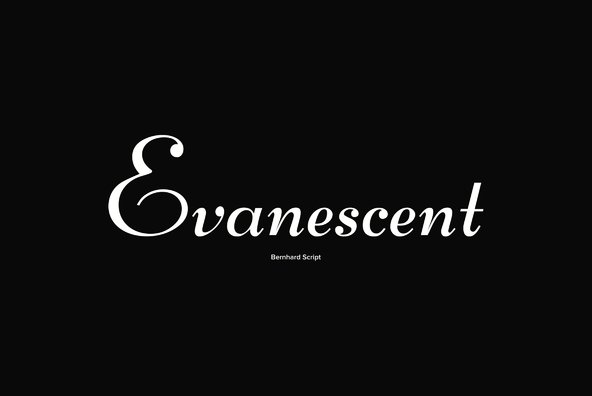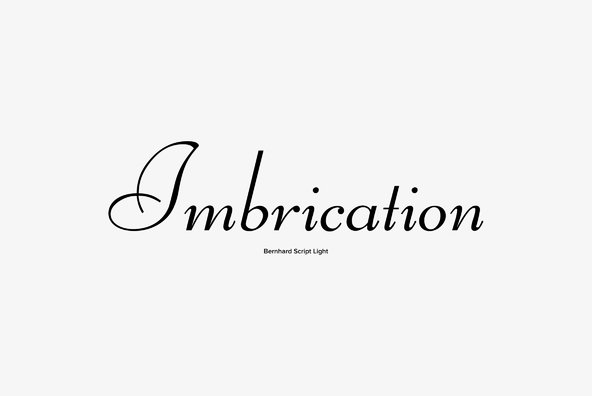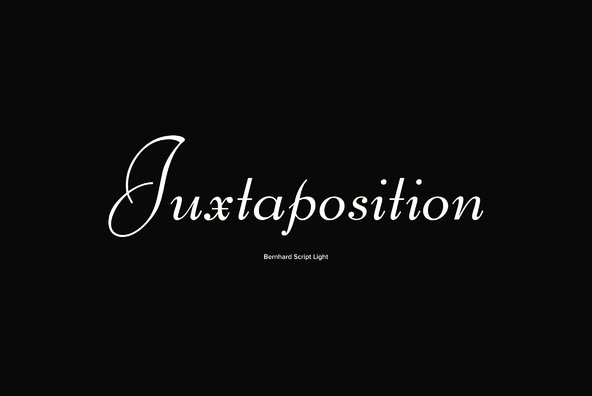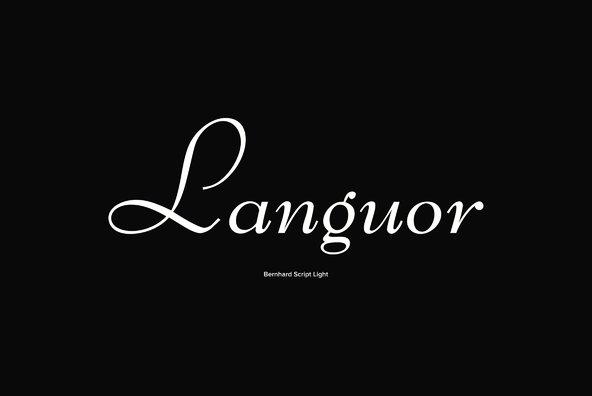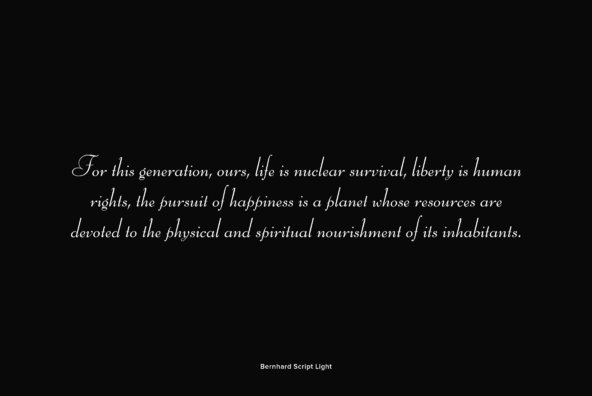
Bernhard Script Font
Bernhard Script (Schonschrift) was originally designed by German designer Lucian Bernhard in 1925/1928 for Bauersche Gießerei in Frankfurt. It is a French-influenced non-connecting script with a small x-height and resultingly large descenders.
Ralph M. Unger revived and digitally re-mastered this beautiful German script in 2005.